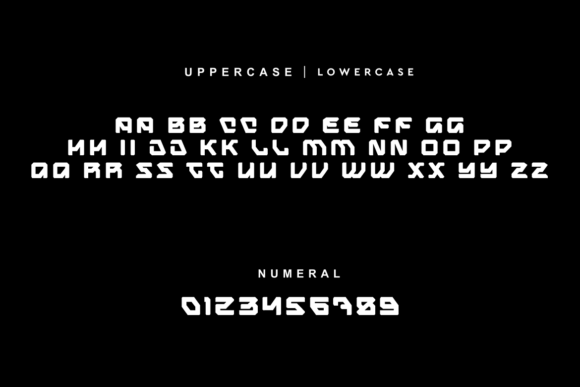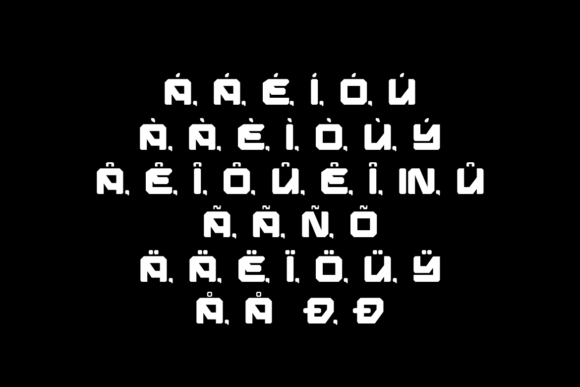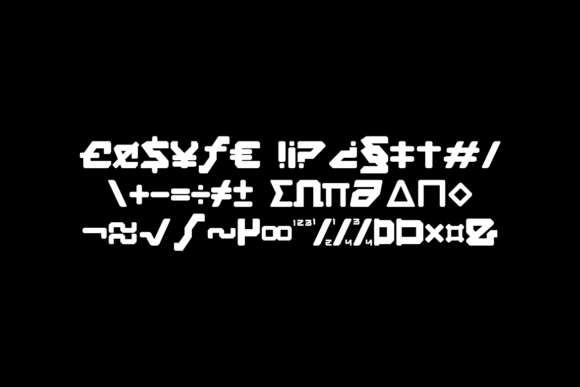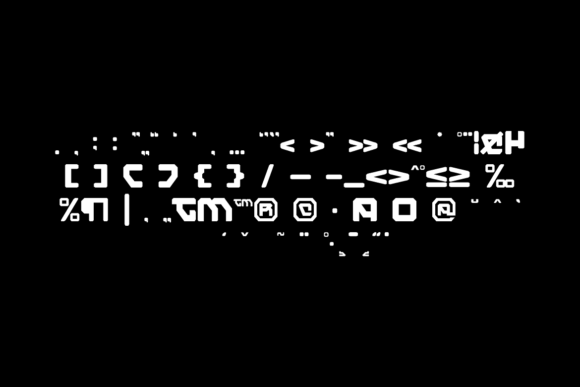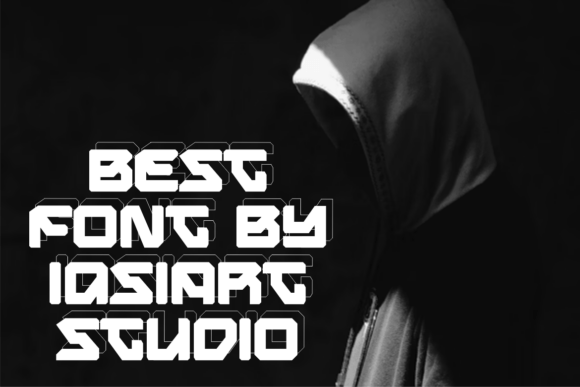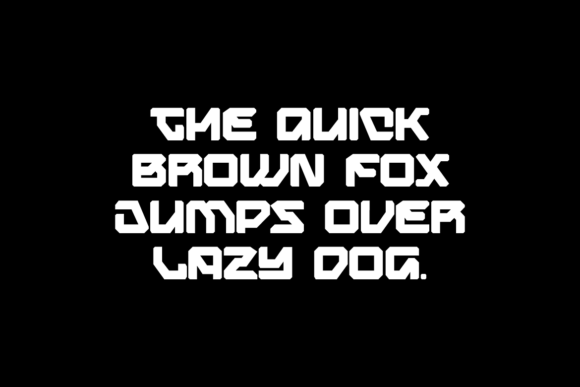
Introduction to Golden Standar Font
Golden Standar is a bold, geometric display font with a futuristic and techno aesthetic.
Inspired by sci-fi visuals, cyberpunk culture, and digital tech interfaces, this font delivers maximum impact for modern and experimental projects Whether youโ€™re building a music festival poster, a gaming interface, or high-tech product branding, Golden Standar commands attention with its angular, blocky shapes and futuristic energy.
Key Features of Golden Standar Font
Why Choose Golden Standar Font?